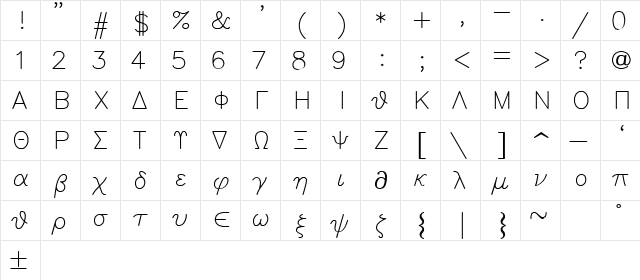
SWGreks Regular
SWGreks offers clean, dependable letterforms without strong stylistic allegiance, making it a practical choice for designers who need flexibility.